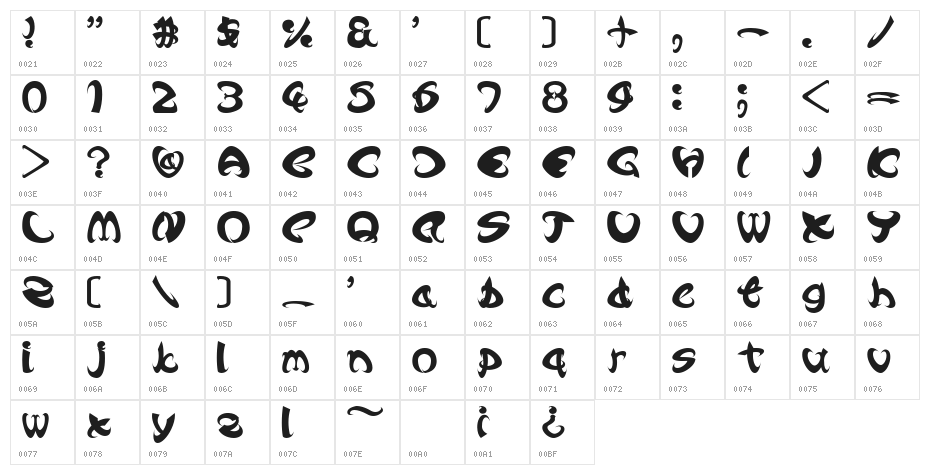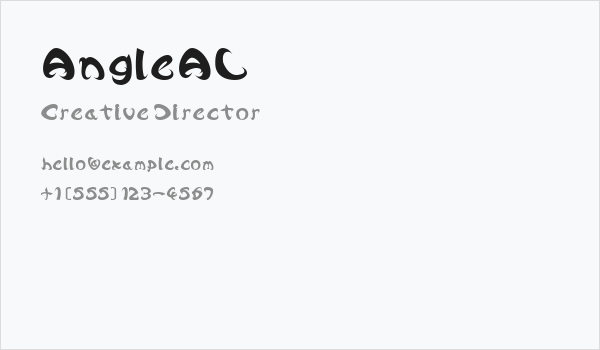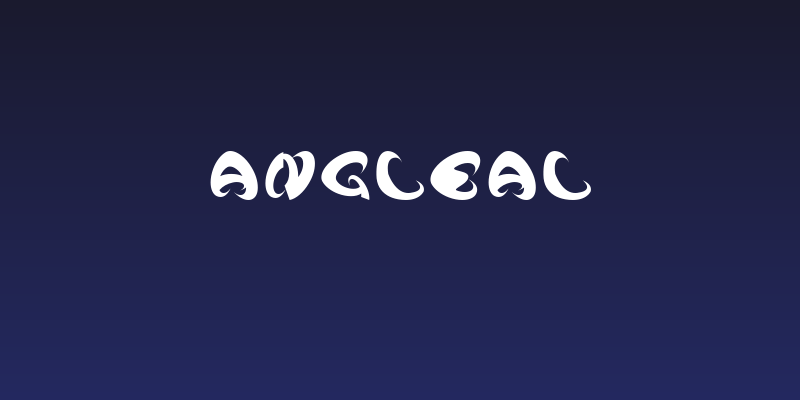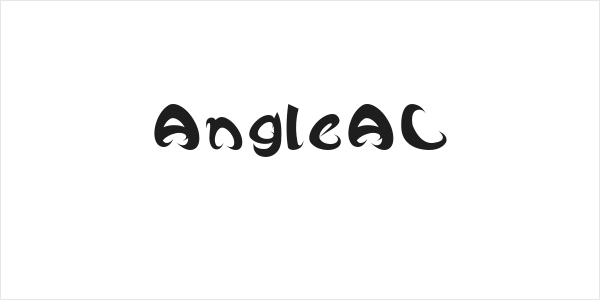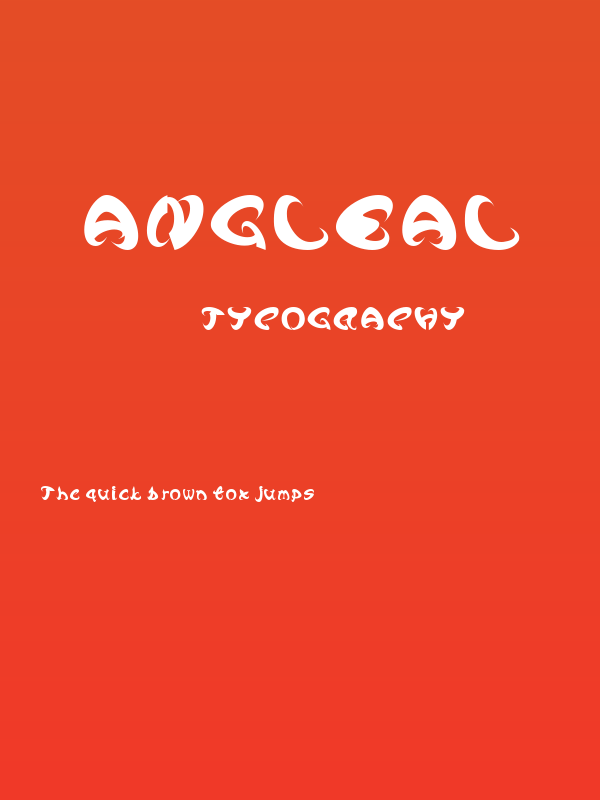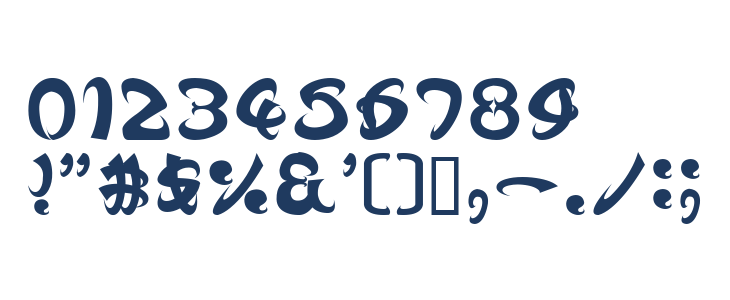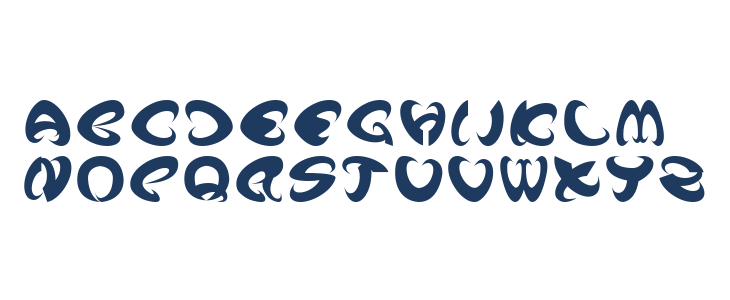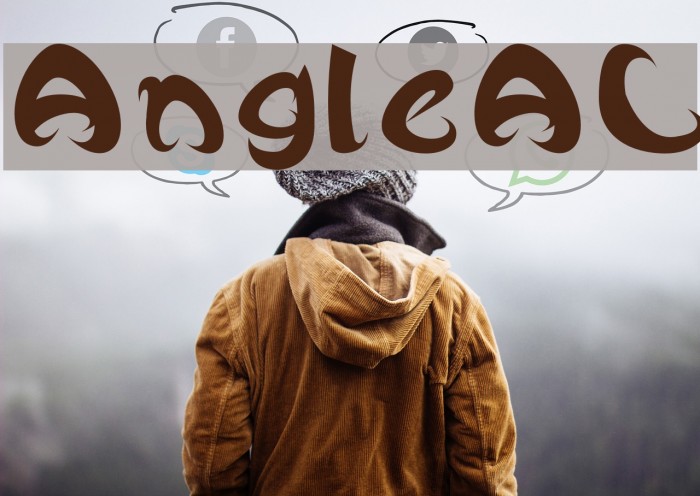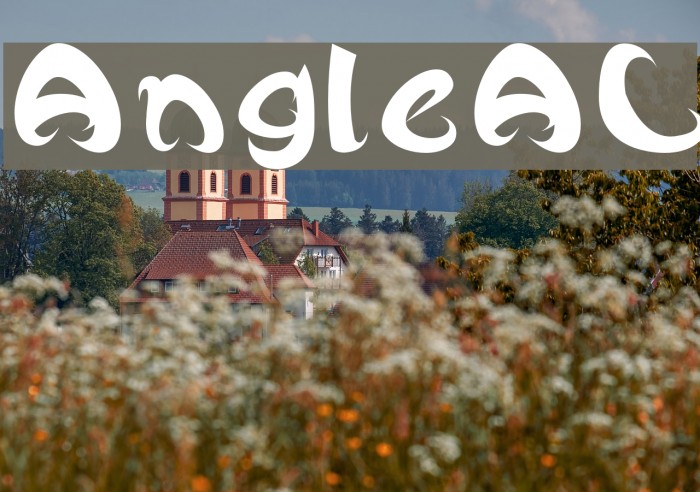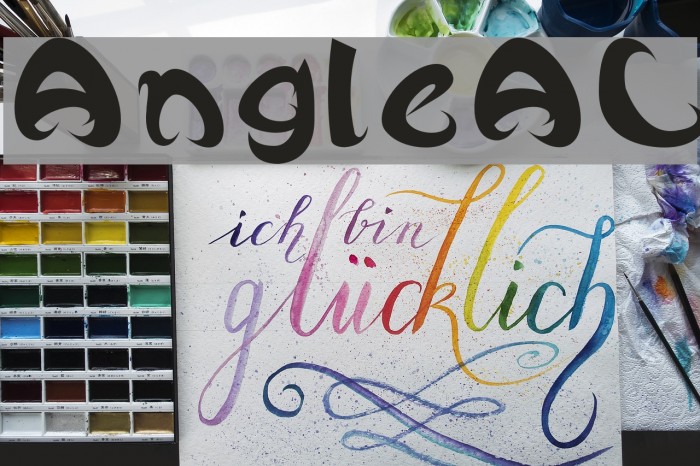
AngleAL Font
AngleAL Description
This font features a bold and dynamic style with a unique, artistic flair. The characters are crafted with thick, sweeping strokes that create a sense of movement and energy. The uppercase letters exhibit a strong presence with their bold curves and sharp edges, while the lowercase letters maintain a consistent flow with slightly more rounded forms. Numbers and special characters follow the same bold and expressive design, making them stand out. The overall appearance is decorative and eye-catching, suitable for projects that require a strong visual impact.
| Proposed Projects | Ideal for posters, logos, branding, and any design that needs a bold, artistic touch. |